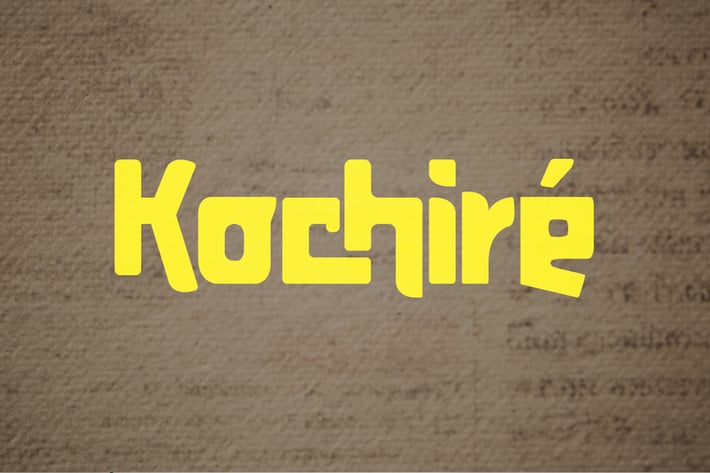
Kochire Font
Kochire is a very attractive display font, each Fonts has its own uniqueness, is made with great care to produce a good work. Richest font can be used to make flyer banners title, logo, Book or magazine header. it also can be used for product branding